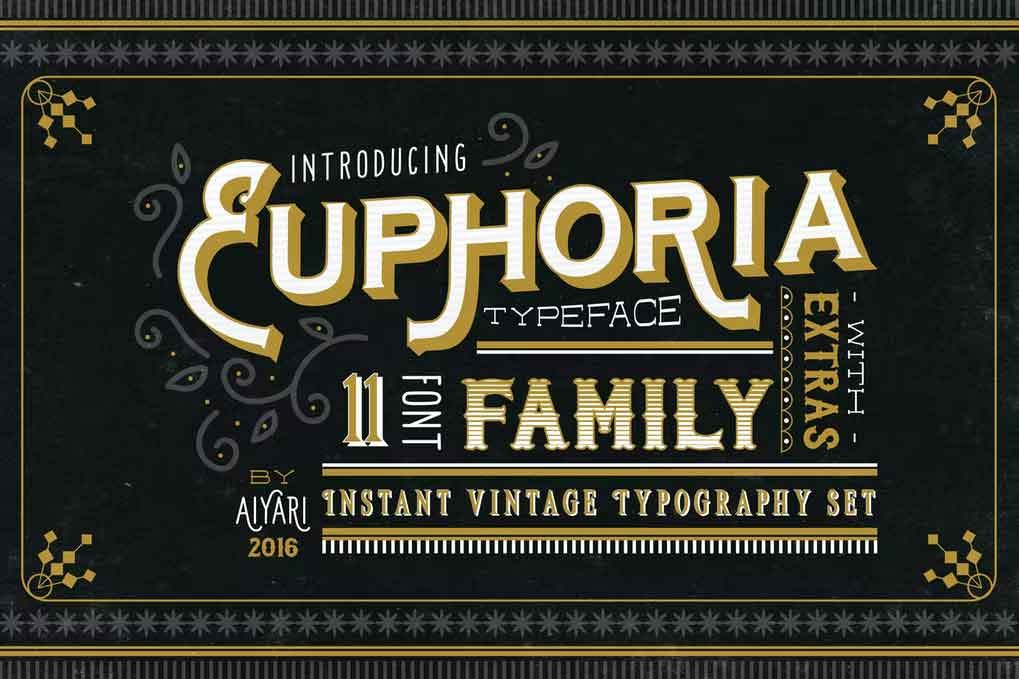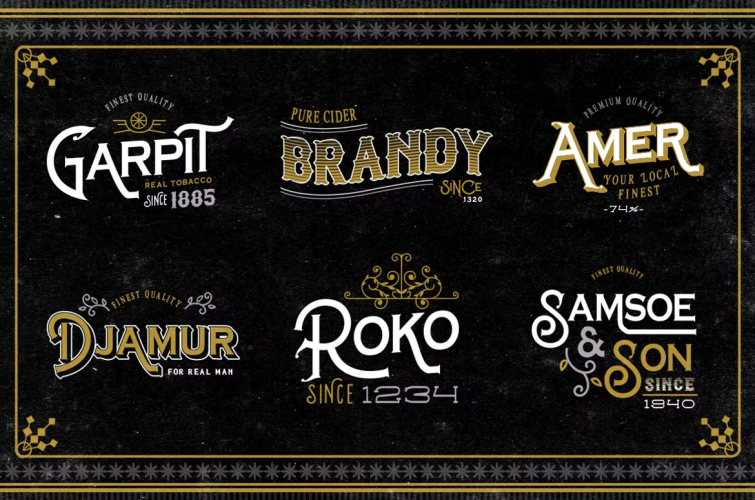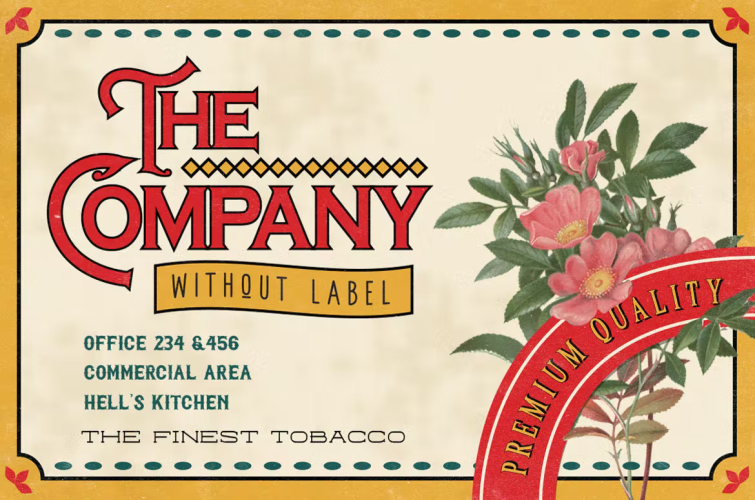
Euphoria Font Family
Introducing Euphoria Font Family. Well crafted typeface inspired by victorian and vintage typography. With 11 font and 1 extras files that work well together to make an instant vintage design. The typeface Ideal for : Logo, quotes, invitations, signage, poster, greeting cards, packaging, headers, printed quotes, cover album, etc
Euphoria Font Family
Euphoria Font Family is a Serif Fonts font that brings a professional and versatile look to your projects. Introducing Euphoria Font Family .